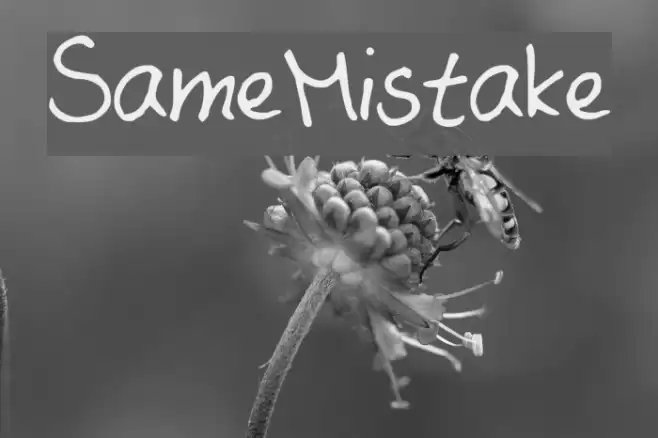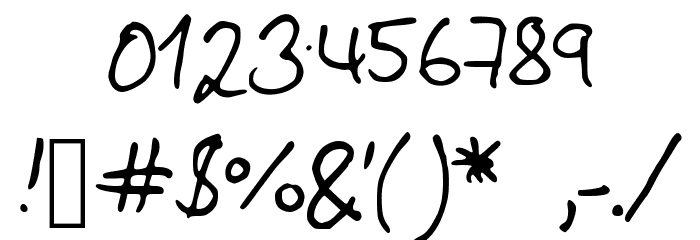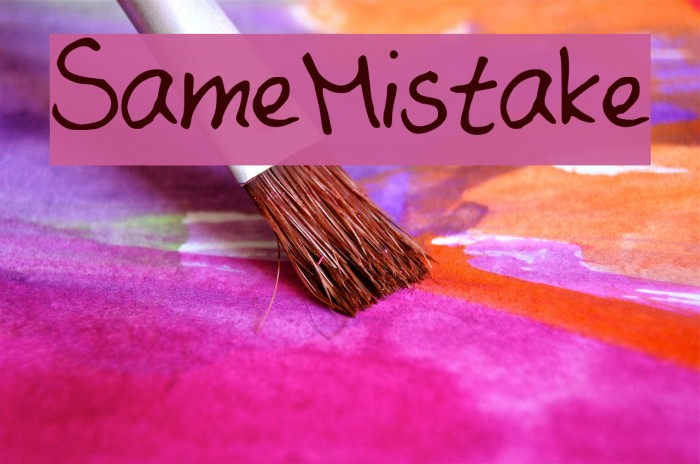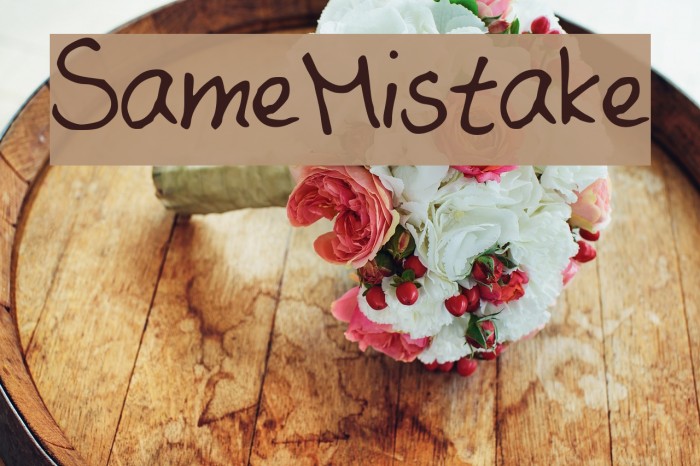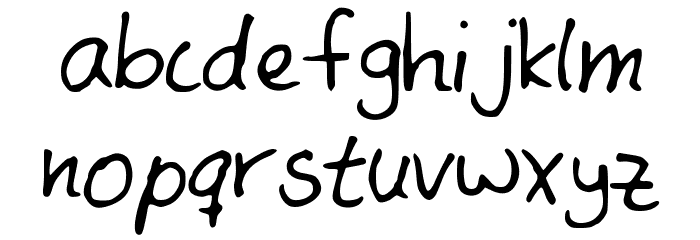
Same_Mistake Font
Same_Mistake Description
This playful and casual font features a handwritten style with a slightly uneven baseline, giving it a personal and informal touch. The characters are rounded and have a natural flow, reminiscent of quick, spontaneous handwriting. The strokes are consistent in width, providing a uniform appearance across all characters. The font includes a full set of uppercase and lowercase letters, numerals, and a variety of special characters, making it versatile for different uses. Its relaxed and approachable style makes it ideal for projects that require a personal or friendly tone.
A playful, handwritten font with a casual and informal style from Handwritten fonts.
- Proposed Projects: Ideal for greeting cards, personal notes, informal invitations, children's books, and creative projects that require a friendly and approachable feel.
- Overall Style: Casual
- Use Case: Logos, Headlines, Informal text